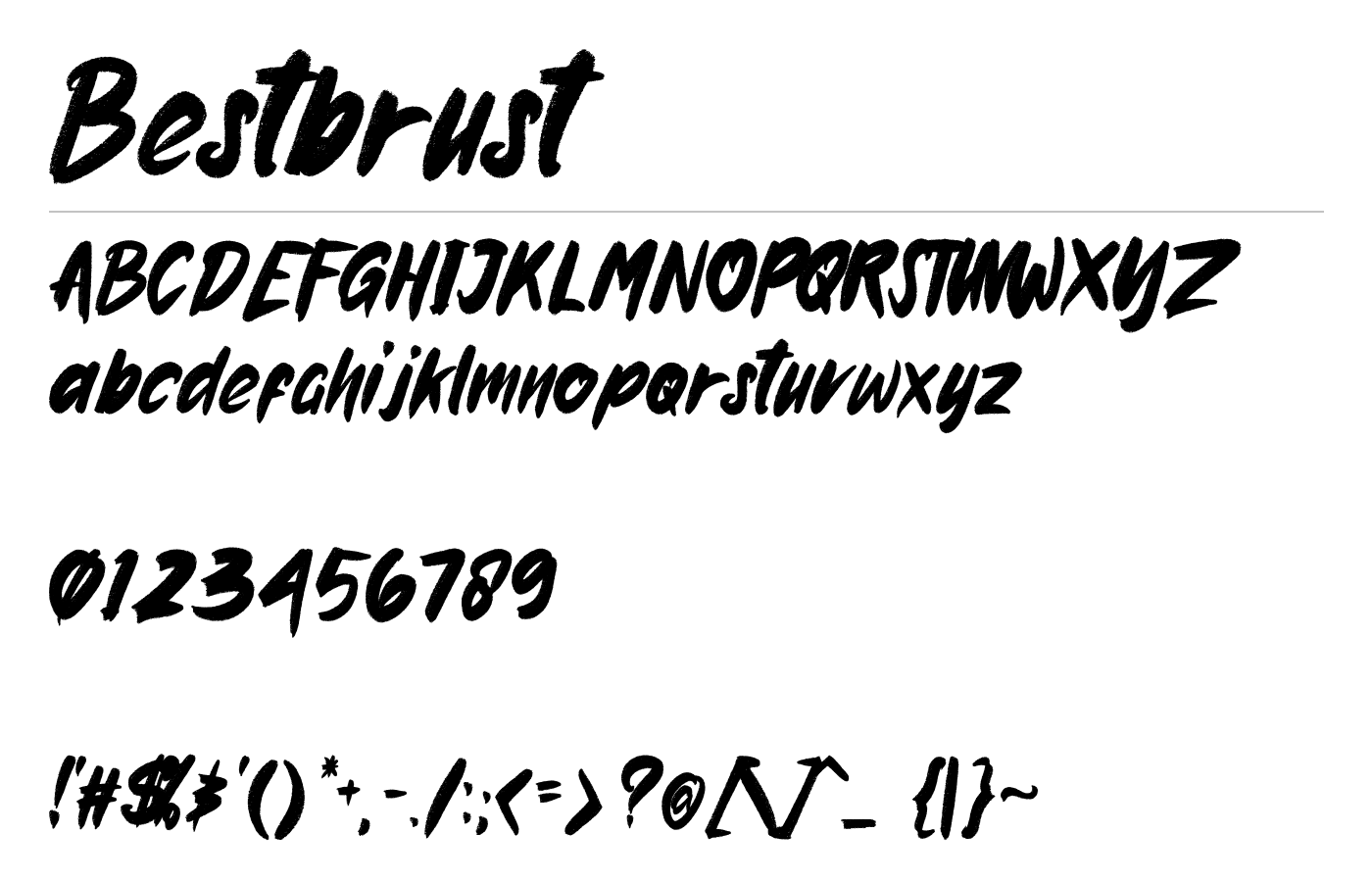
Bestbrust is a bold, expressive brush script font that captures the energy and spontaneity of hand-painted lettering. Its thick, textured strokes and casual, slightly slanted letterforms give it a dynamic and playful personality, perfect for adding a lively, creative touch to branding, posters, and headlines. This font works well where a strong, artistic impact is needed, making it ideal for design projects that want to feel authentic and vibrant.
Bestbrust Font
About Bestbrust Font